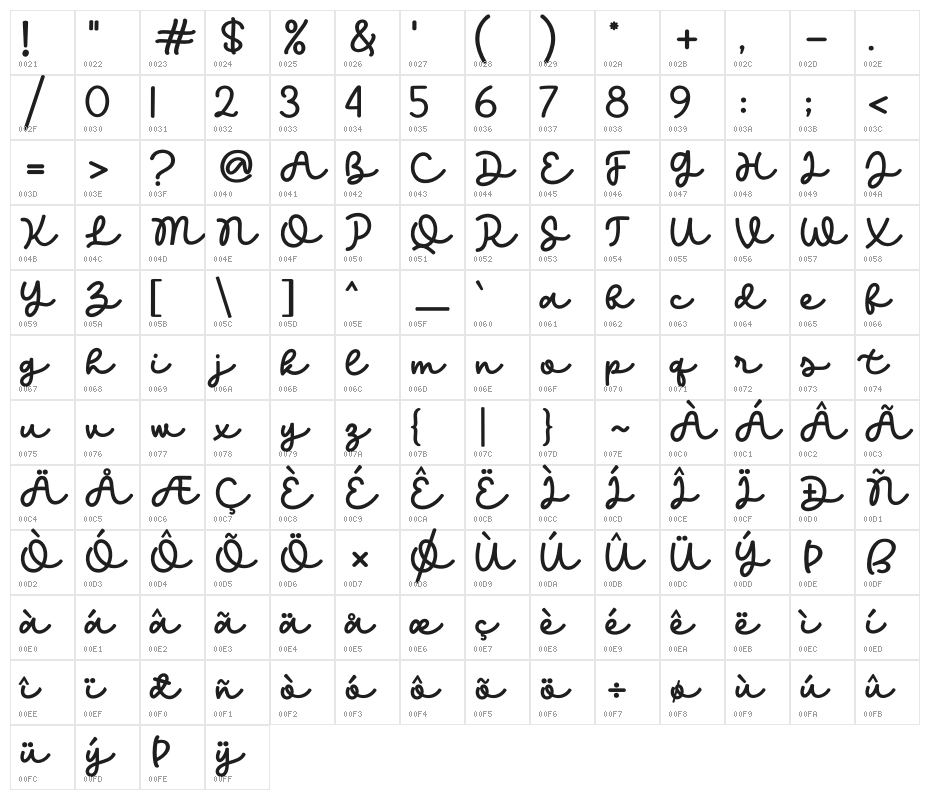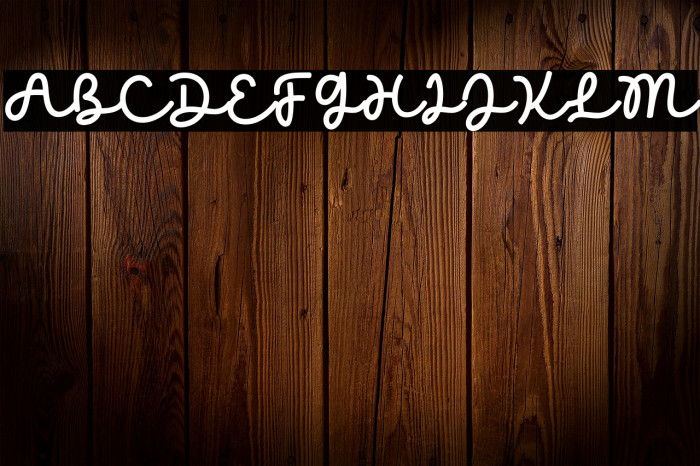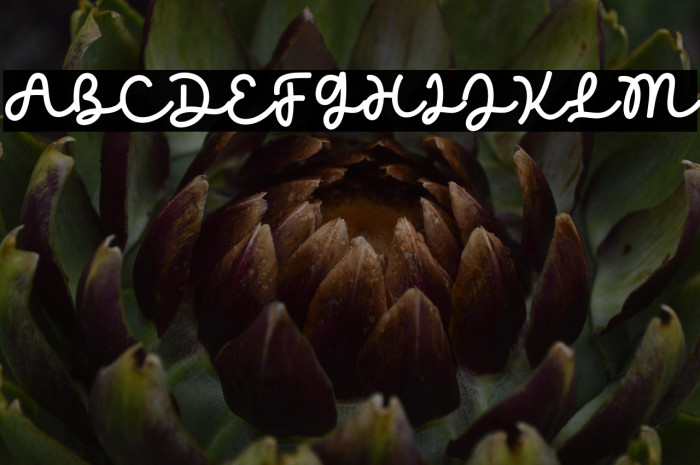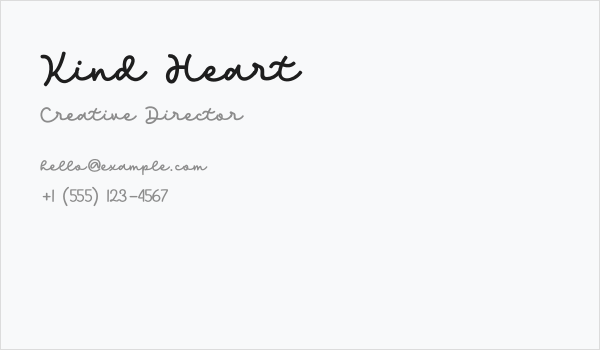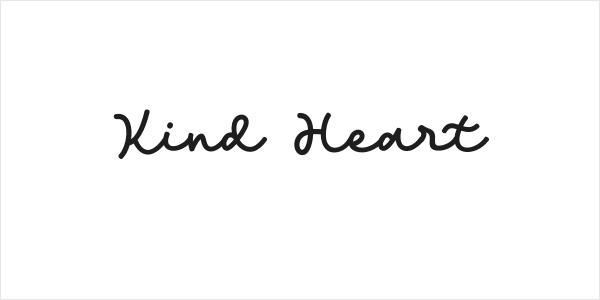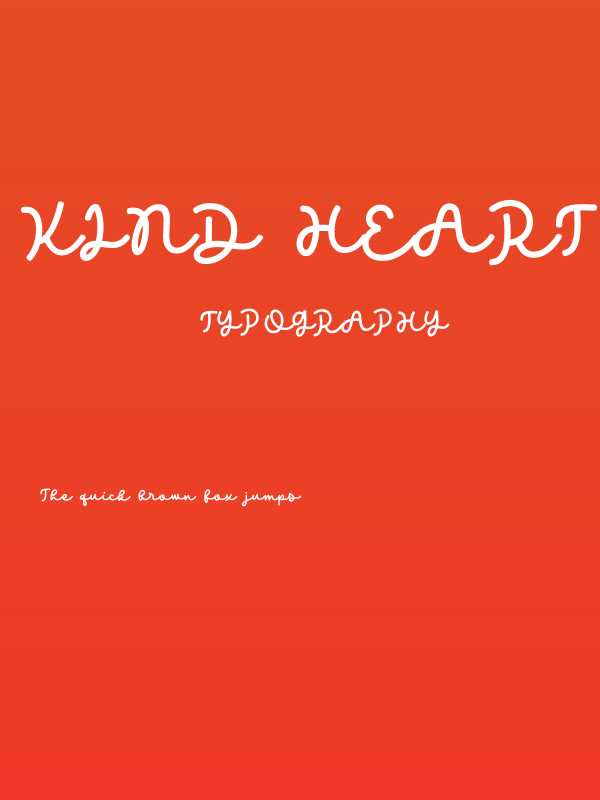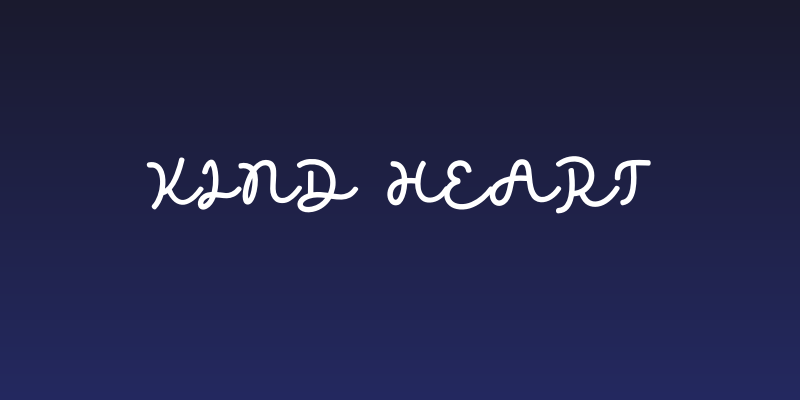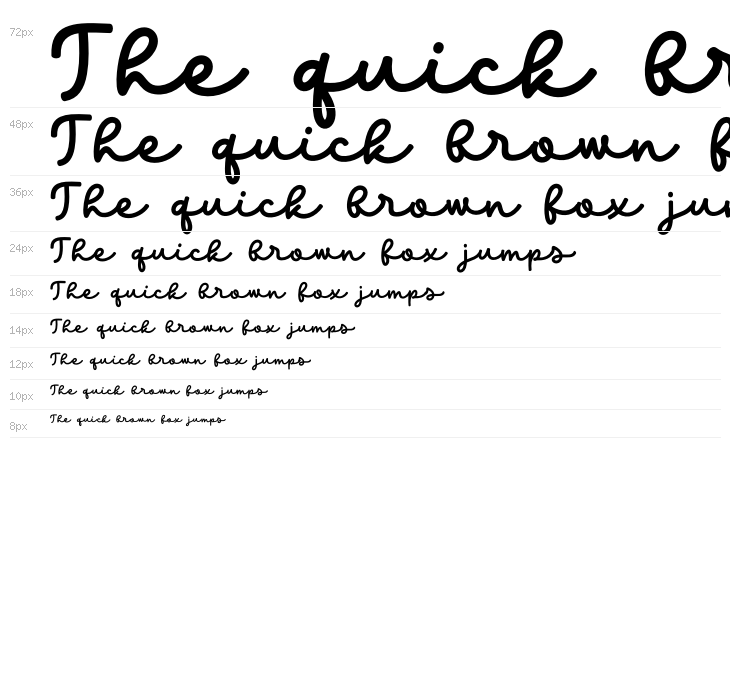
Kind Heart Font
Kind Heart Description
This font features a playful and flowing script style, characterized by its smooth, continuous strokes and rounded edges. The uppercase letters exhibit a whimsical, cursive flair, while the lowercase letters maintain a consistent, connected form that enhances readability. The numerals are bold and clear, complementing the overall aesthetic with their rounded and slightly elongated shapes. Special characters are thoughtfully integrated, maintaining the font's cohesive and friendly appearance. This font exudes a sense of warmth and approachability, making it ideal for projects that require a personal touch.